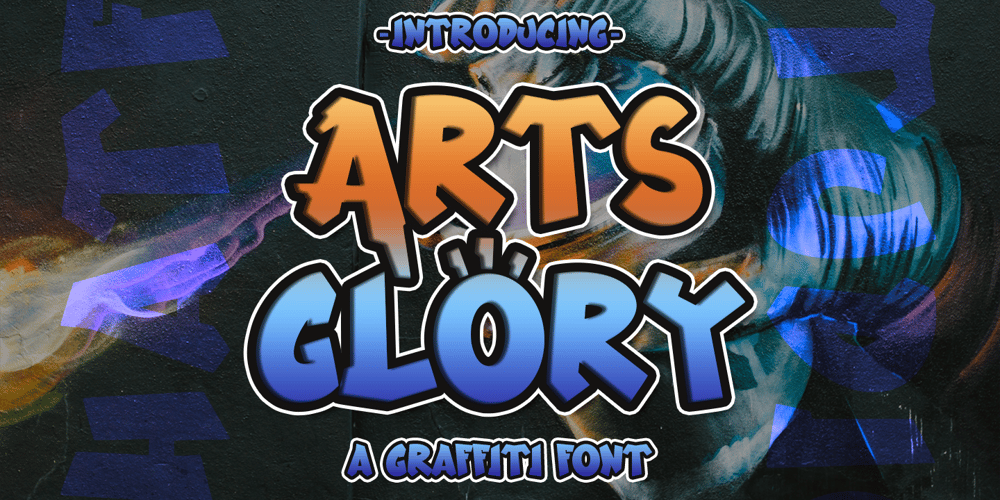
Arts Glory Font Family was designed by Asep Rendi and published by Hatftype. Arts Glory contains 1 styles and family package options. Arts Glory – Graffiti Font is a free style font that has the characteristics of street art that shows freedom and is filled with unique characters.Product Include : Arts Glory (OTF,TTF Format) Arts Gloryt Webfont (WOFFFormat)Features : • Character Set A-Z • Numerals & Punctuations (OpenType Standard) • Accents (Multilingual characters) • Ligature • AlternateThere it is.I really hope you enjoy it.